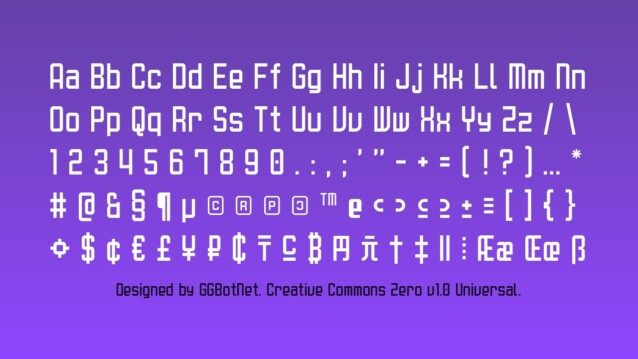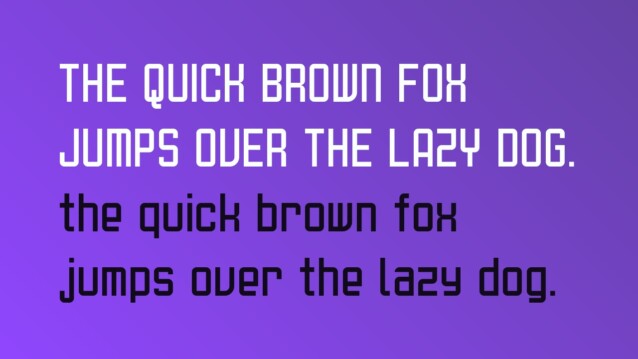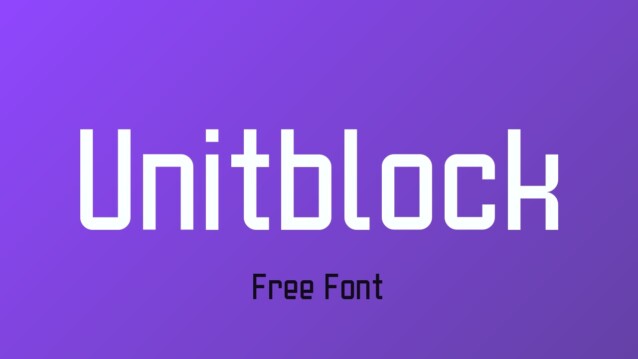
Unitblock Font
Unitblock Font is a free squareish display font. Proportions are precisely adjusted with subtle contours and subtle contrasts. These shapes give the font an attractive look without compromising on elegance and minimalism, ensuring that any glyph will work well in any graphic design purpose such as brochures, videos, advertising branding, logos, magazines, layout designs, posters, post templates, games and others